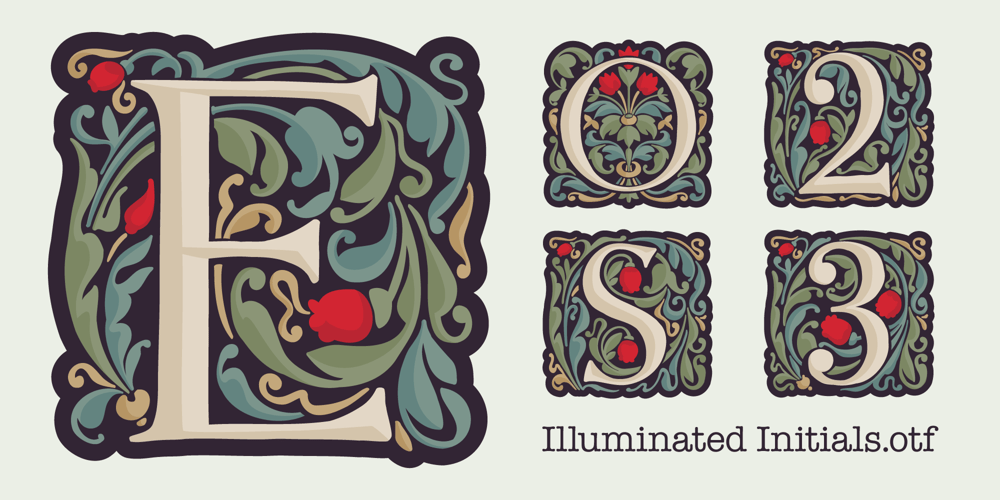
Illuminated Initials Font Family was designed by Roman Korolev and published by Kaer. Illuminated Initials contains 2 styles and family package options. Illuminated Initials font family has Regular and Colored styles and inspired by medieval initials. It’s all you need to precisely imitate dark-ages style text. Use this font as a decorative element at the beginning of a paragraph or section, other part of the paragraph should be in regular black letter font.You’ll get Drop Caps & Numbers set.—*You can use color fonts in PS CC 2017+, AI CC 2018+, ID CC 2019+, macOS 10.14 Mojave+ **Please note that the Canva & Corel doesn’t support color fonts!**Please download this test file with only A letter ( https://www.dropbox.com/s/fbt3wpu2j3t0ymv/IlluminatedInitials-Test.otf?dl=0 ) to check your app & system.*—Please feel free to request any help you need: kaer.pro@gmail.comBest, Roman.